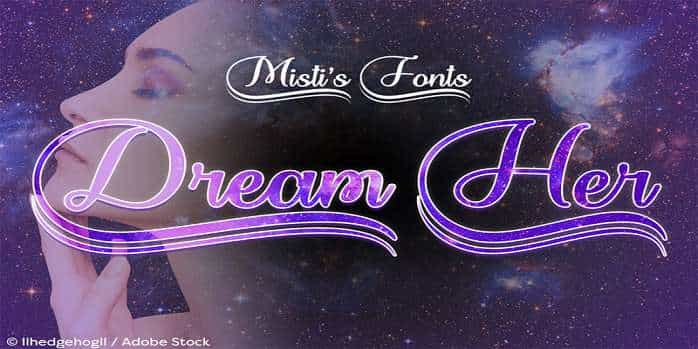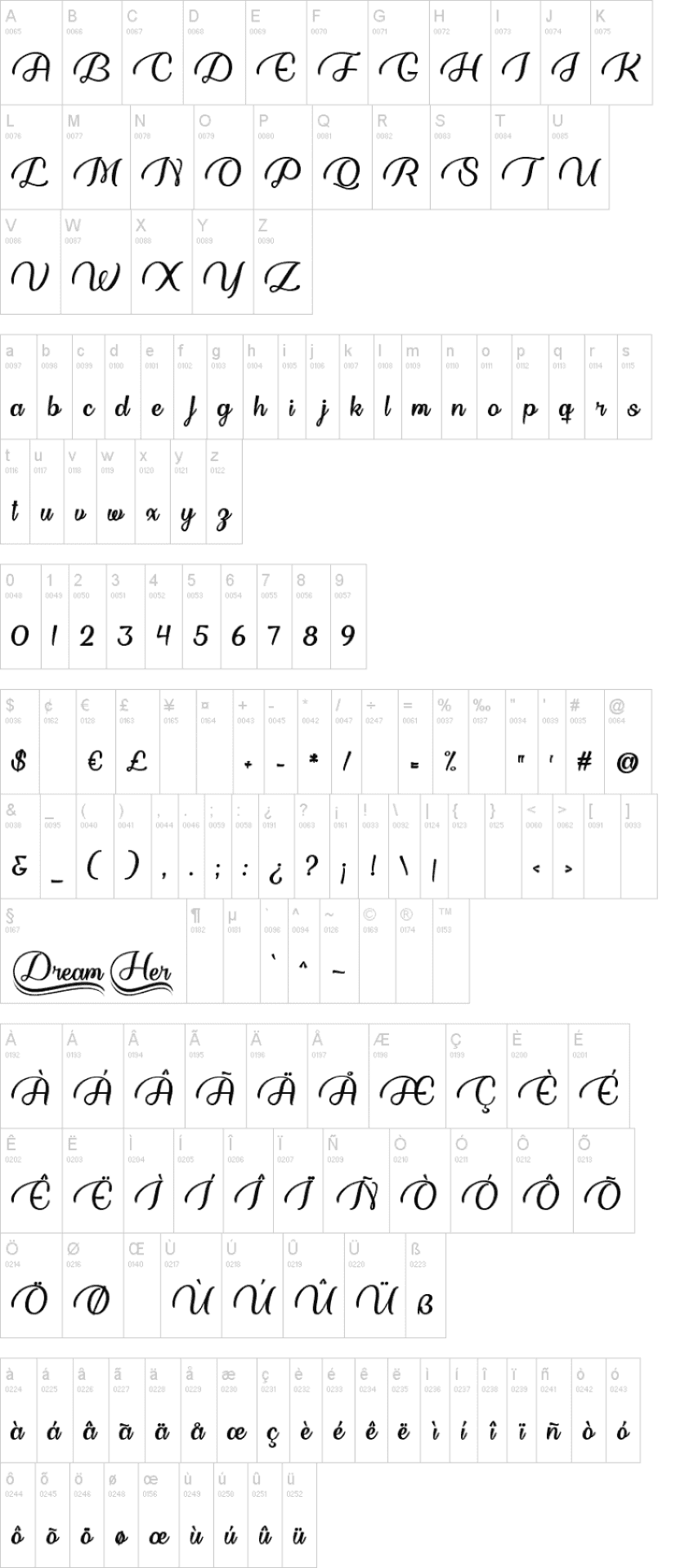
The given examples show that one starts with typing an upper case letter and use asterisks until the requisite length is achieved; there are 21 lengths of capital alphabets!Well, you ought to be able to turn ligatures on in whatever program you use!If you truly want those big, friendly, boldierized characters–you will find that these uppercase swashy fiends are PUA encoded–which means that they can go anywhere!!